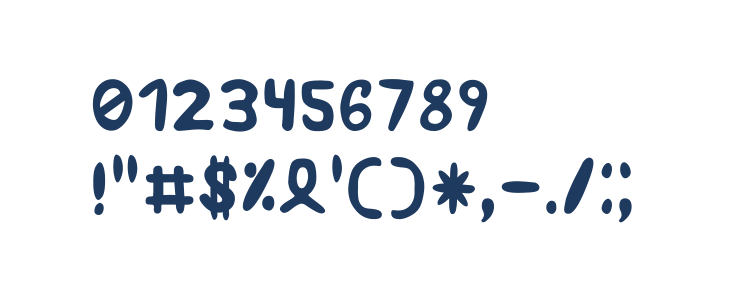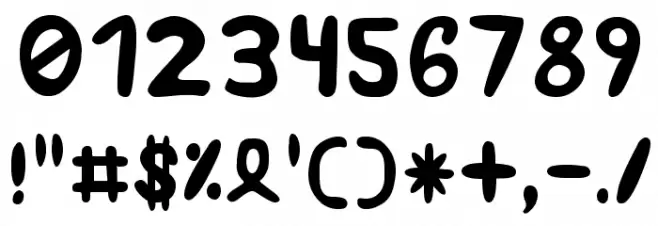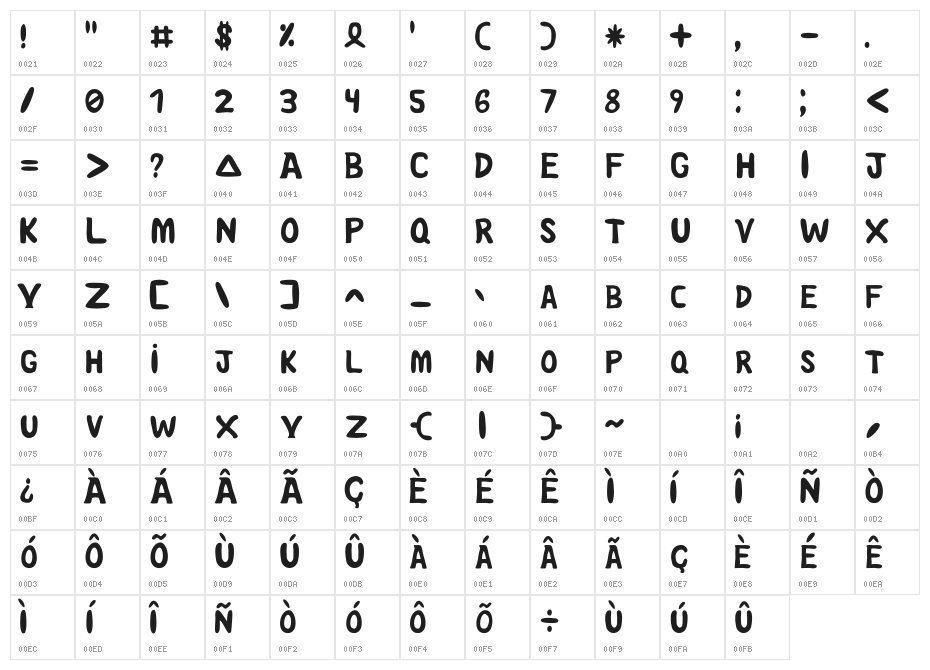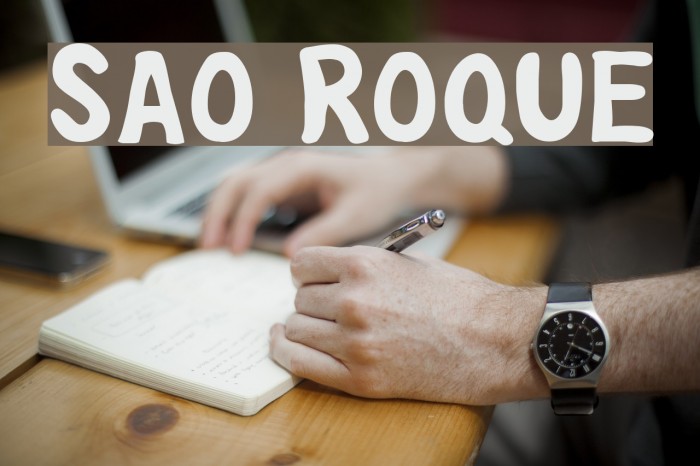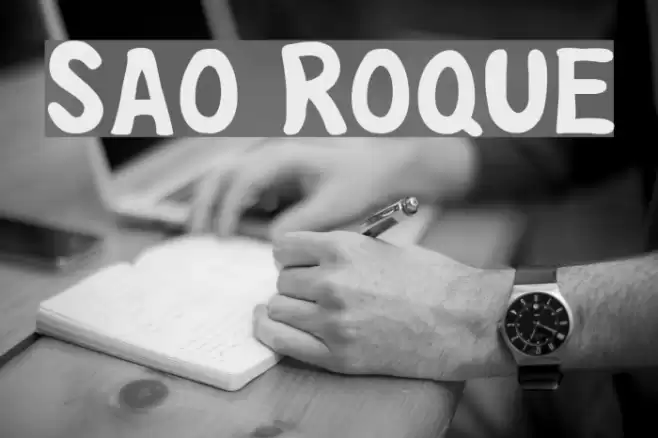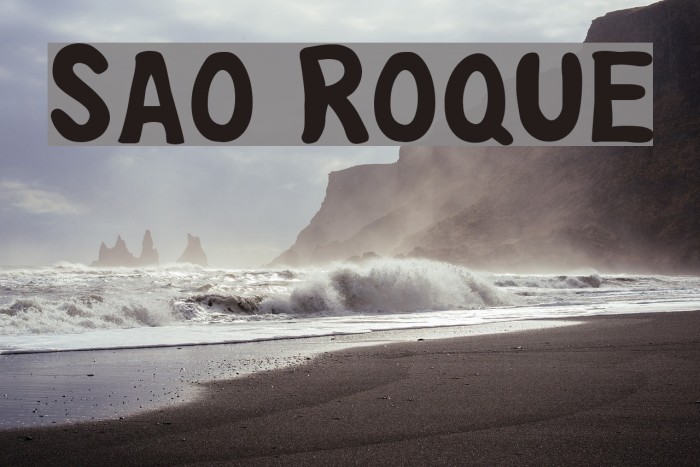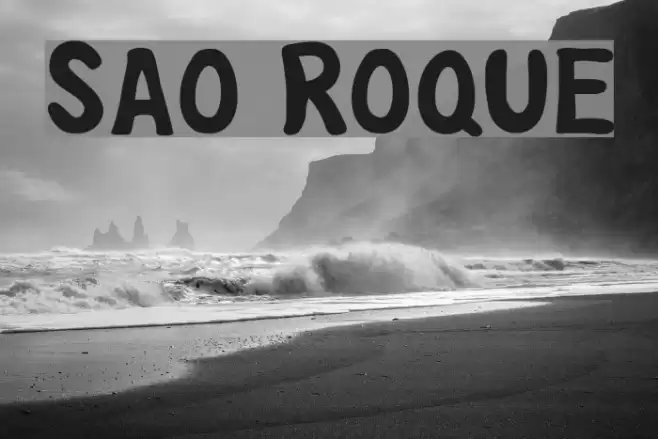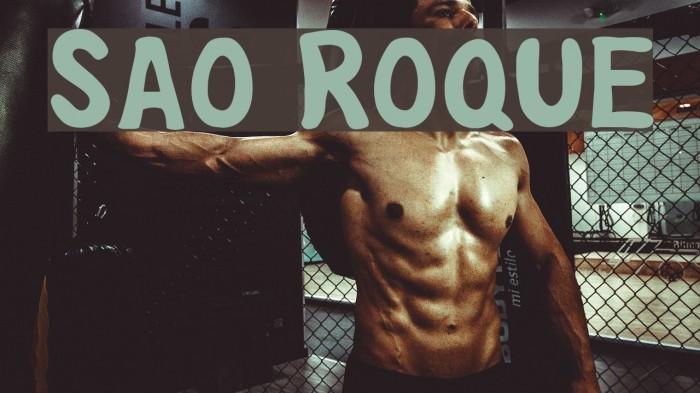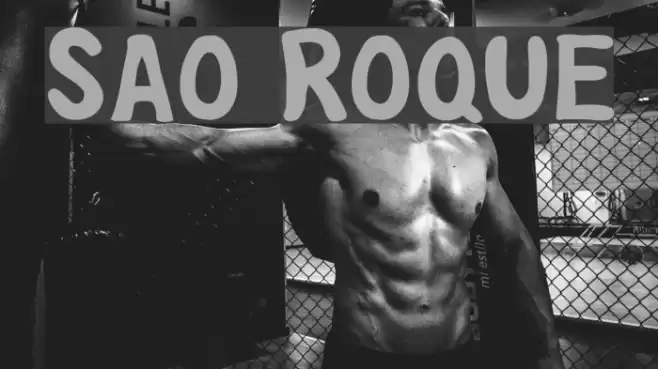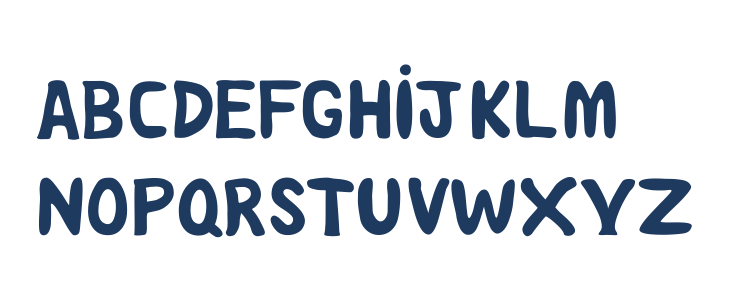
Sao Roque Font
Sao Roque Description
This playful and bold font features rounded edges and a hand-drawn aesthetic, giving it a friendly and approachable feel. The characters are slightly irregular, adding to its charm and uniqueness. The uppercase and lowercase letters maintain a consistent style, with a slight slant that adds a dynamic quality. The numbers and special characters are equally whimsical, making this font suitable for creative and informal projects. Its boldness ensures readability while the rounded forms provide a soft and inviting appearance.
| Proposed Projects | Ideal for children's books, playful branding, greeting cards, and casual posters. |